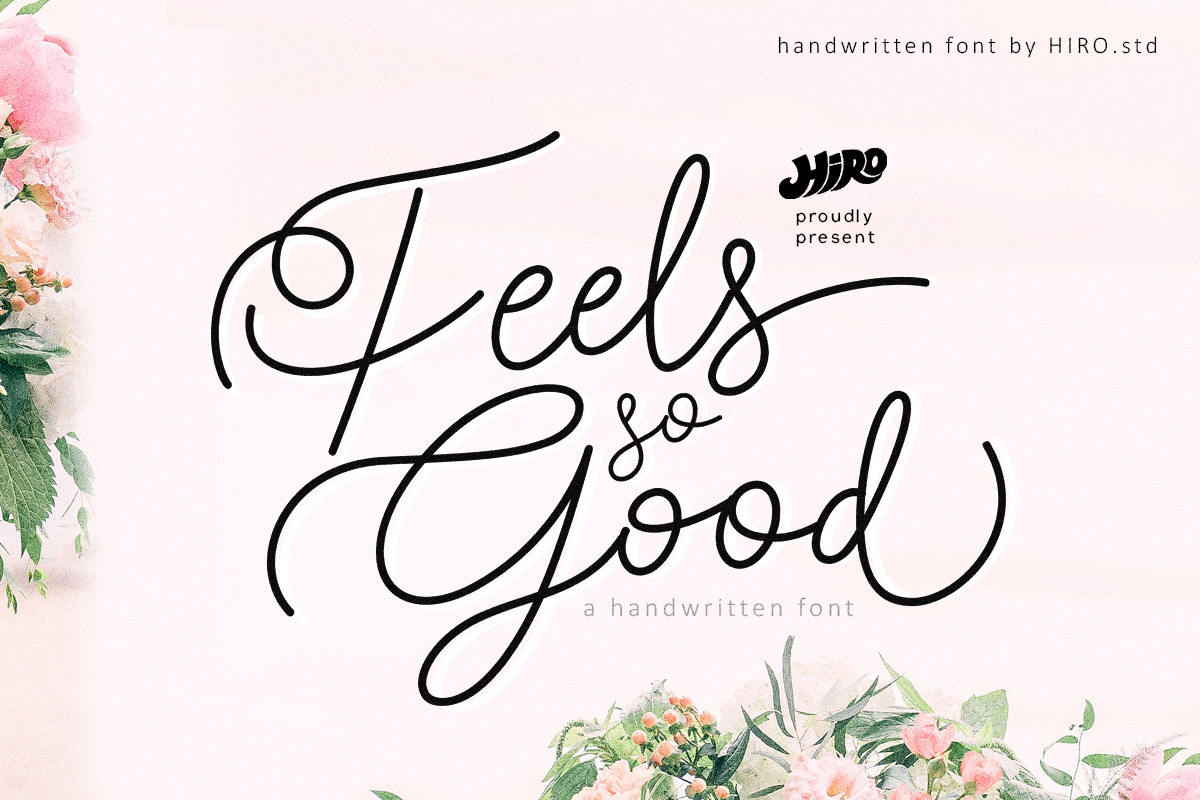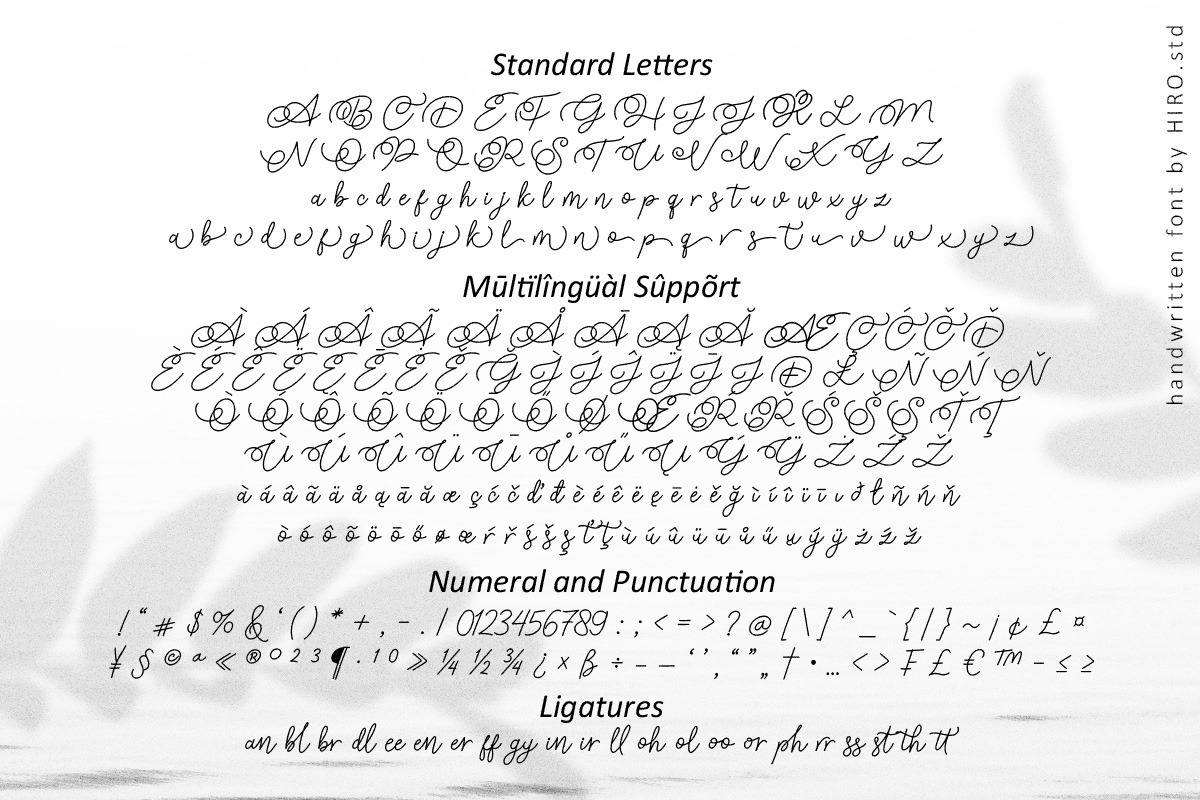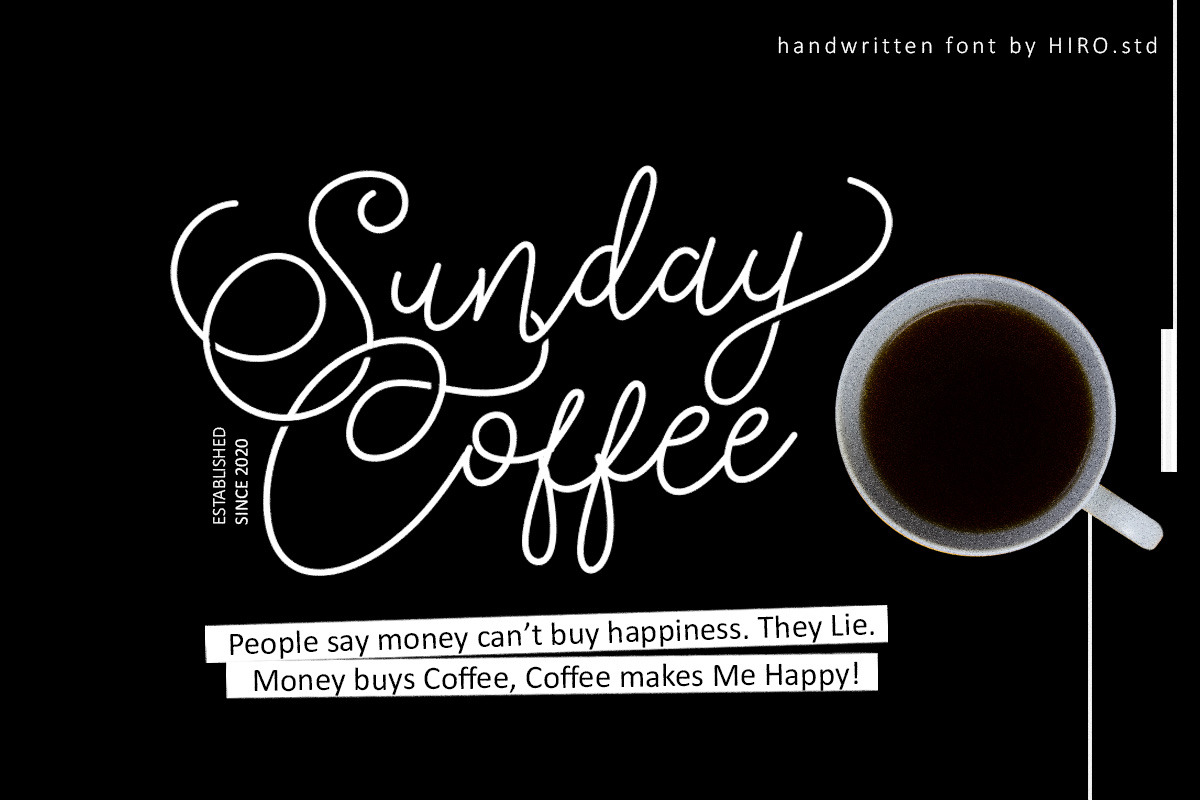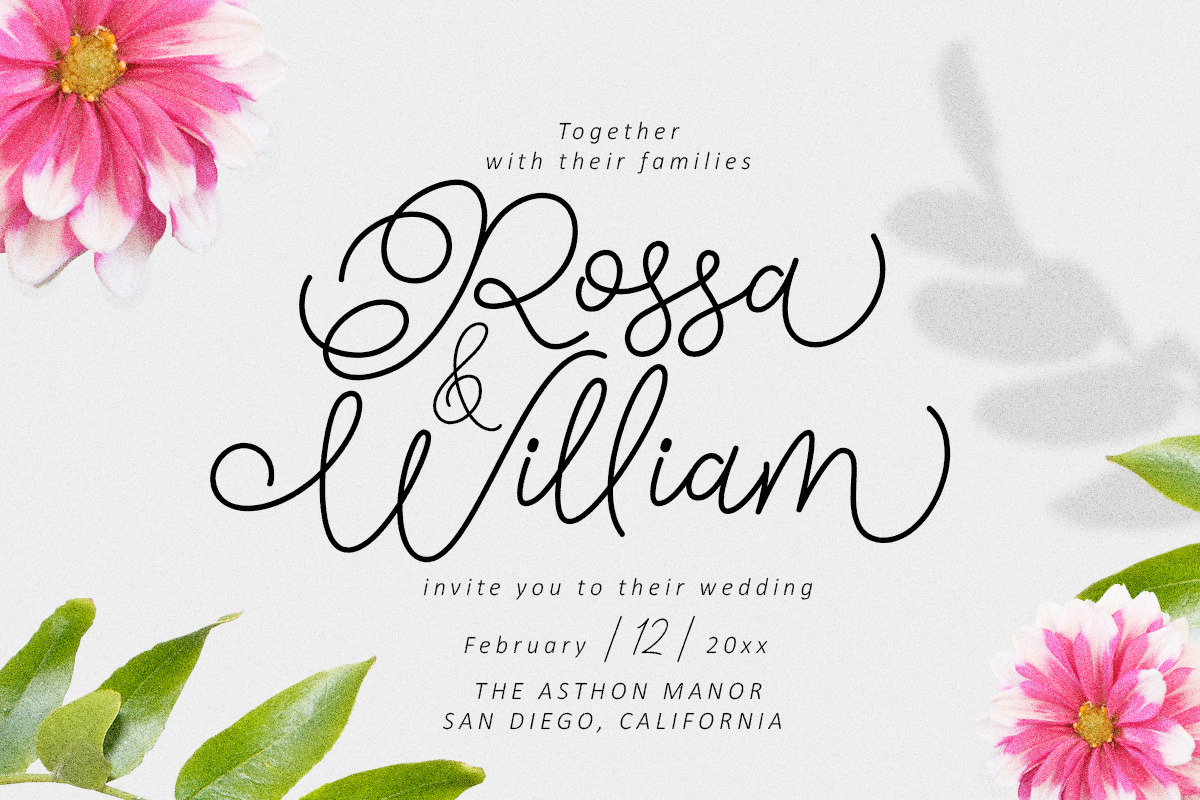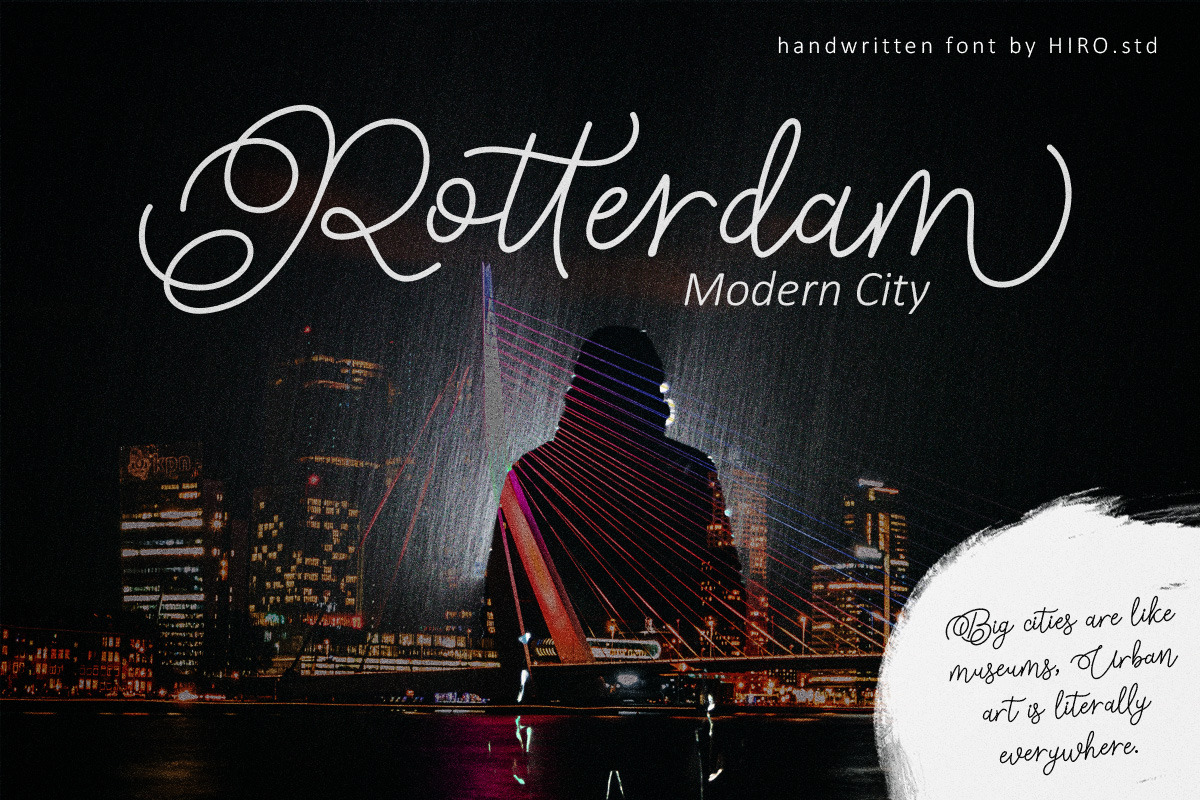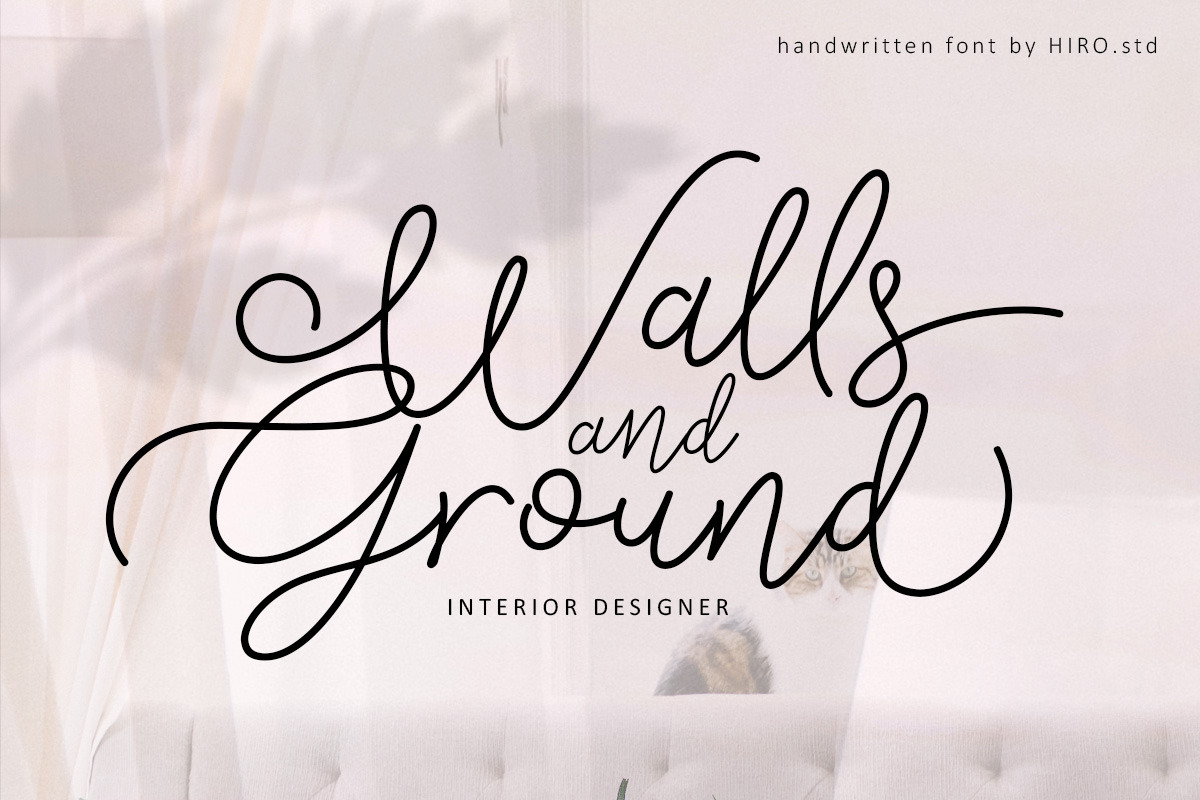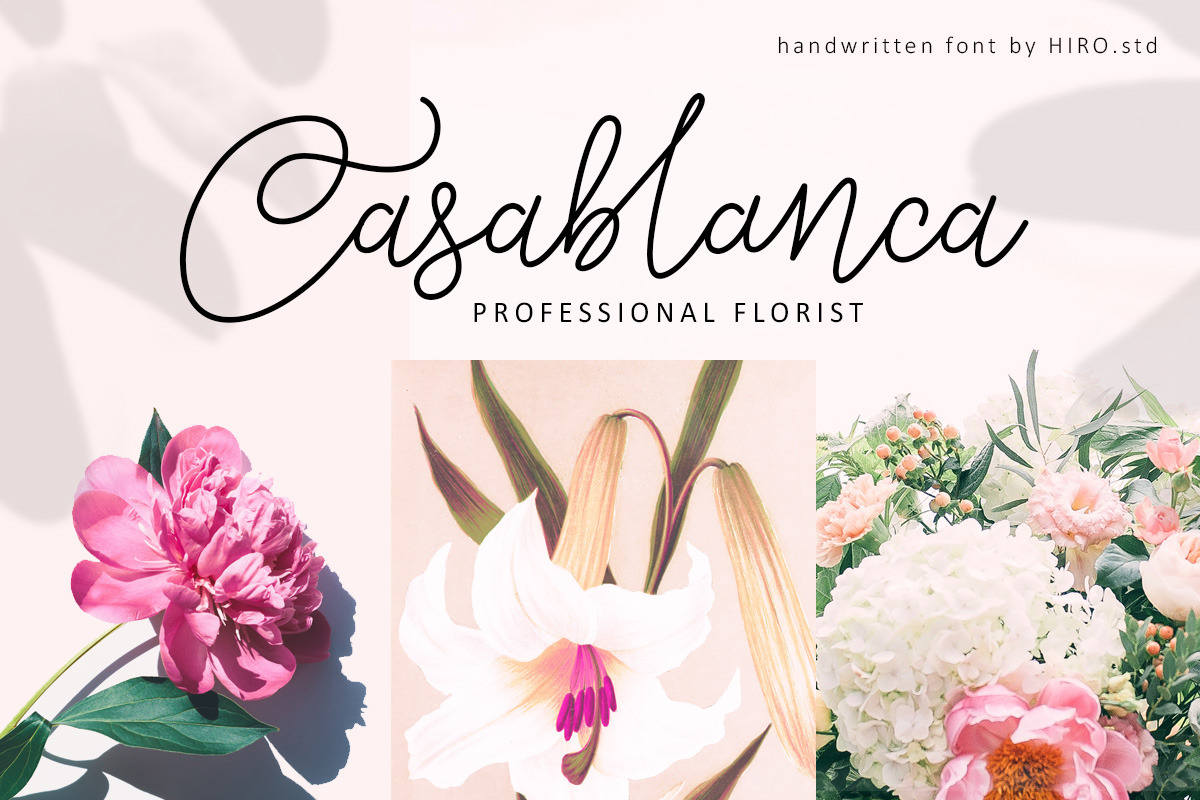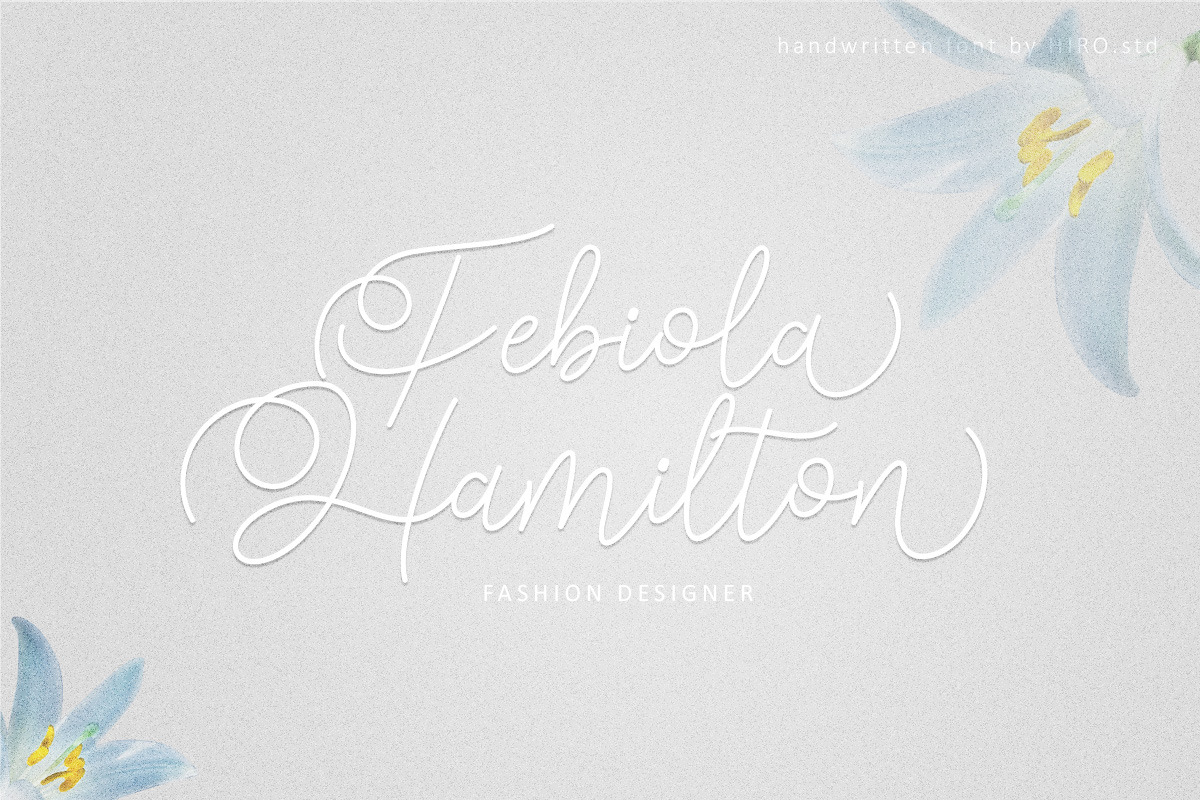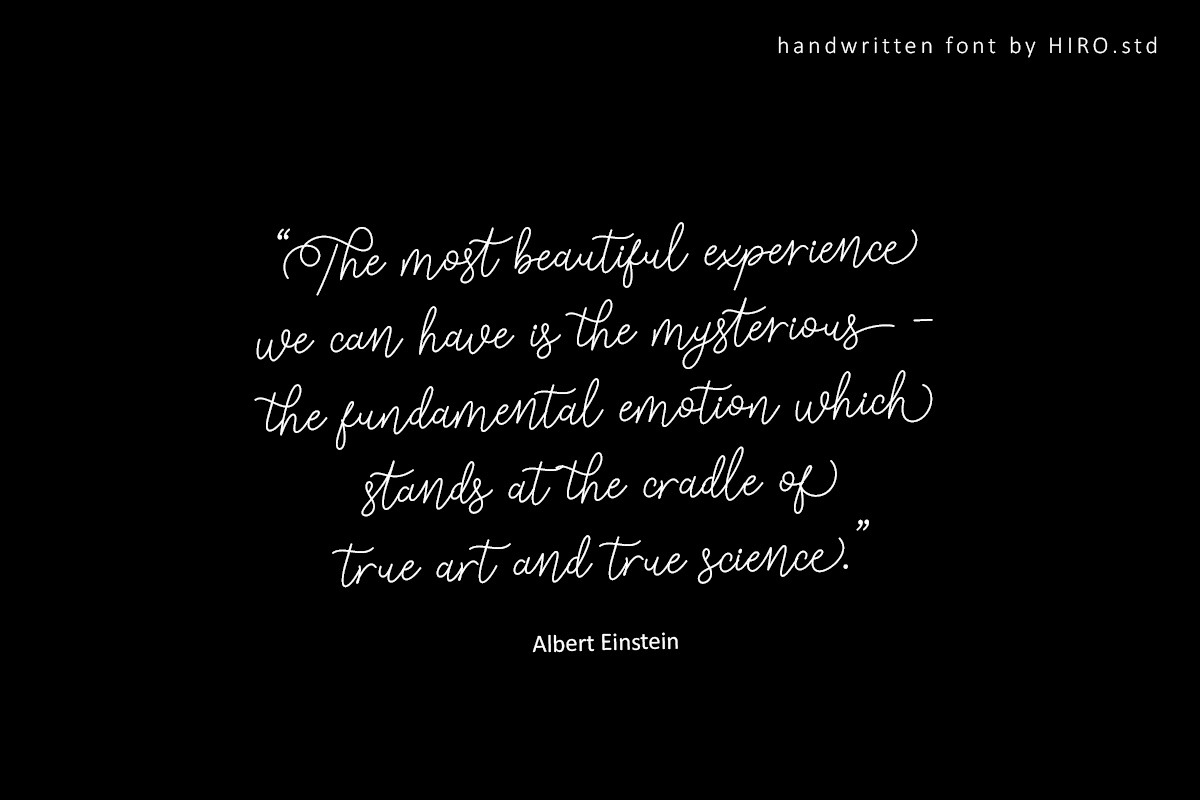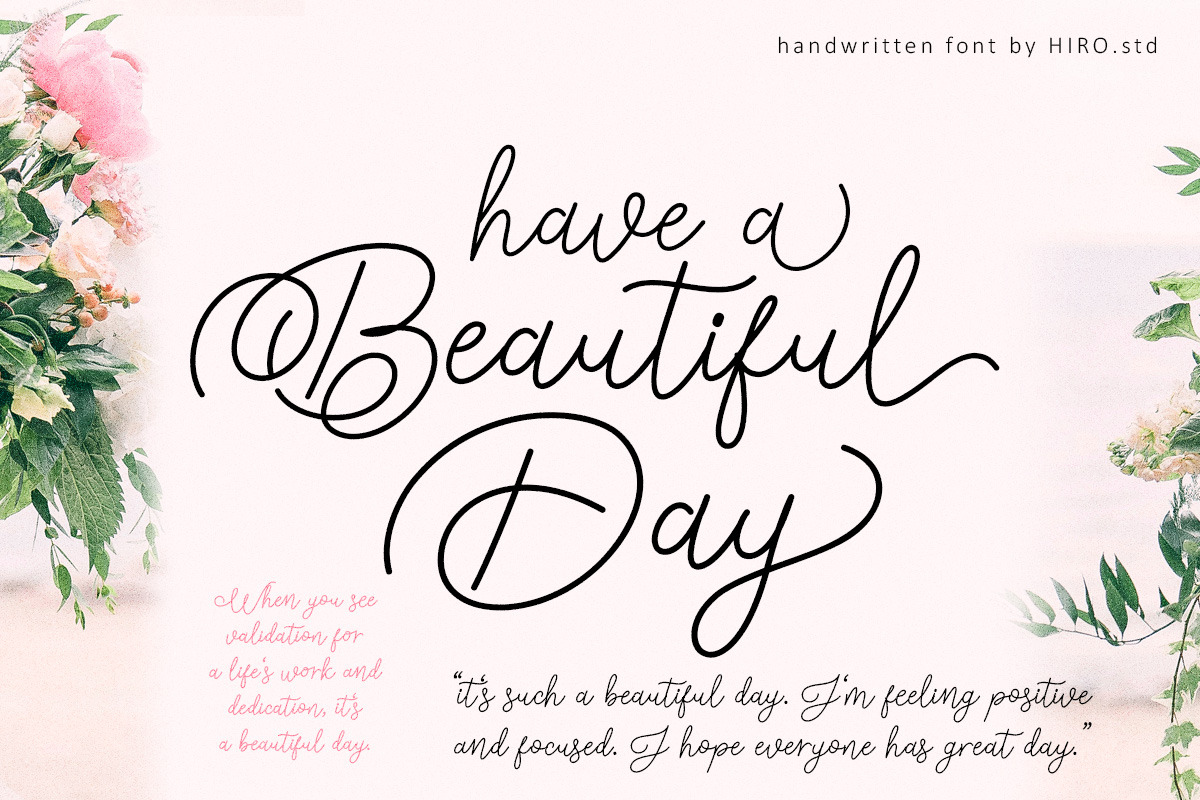
Feels so Good - Script Font
Feels so Good is a semi casual script font.
This font describes about girly, feminist, elegant, dynamic, humanist, easy to use and will bring a good harmony when the letters are connected and paired each other.
- Support Opentype Features
- Support Ligatures
USE Feels so Good works great in any branding, logos, magazines, invitation, wedding designs, social media posts, advertisements, product packaging, product designs, label, photography, watermark, invitation, stationery, quotes and any projects that need handwriting taste.